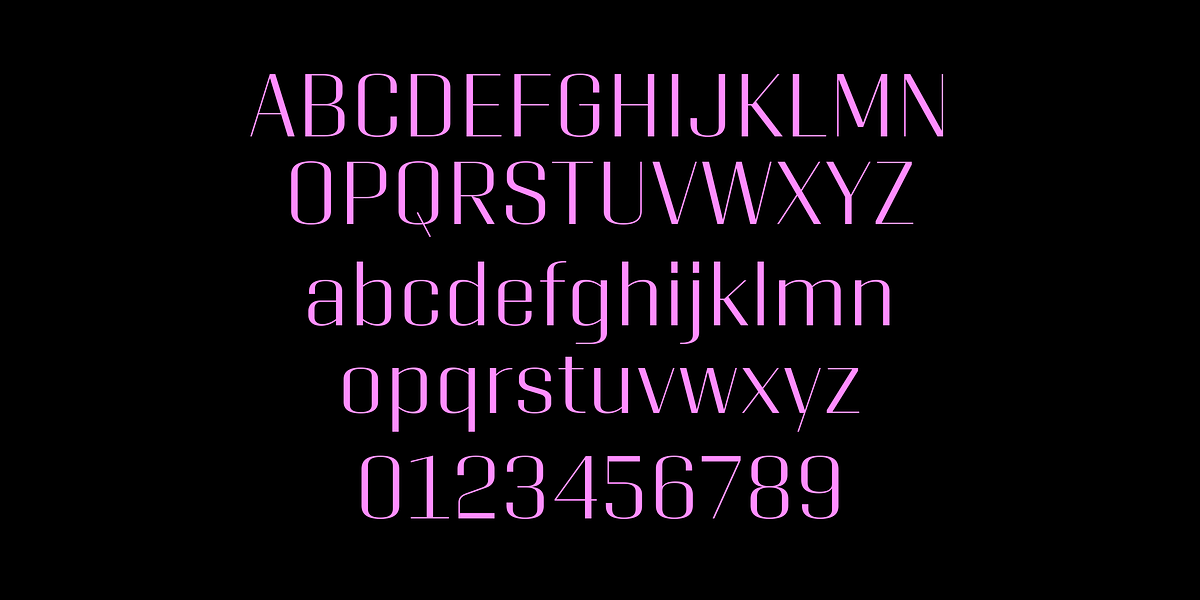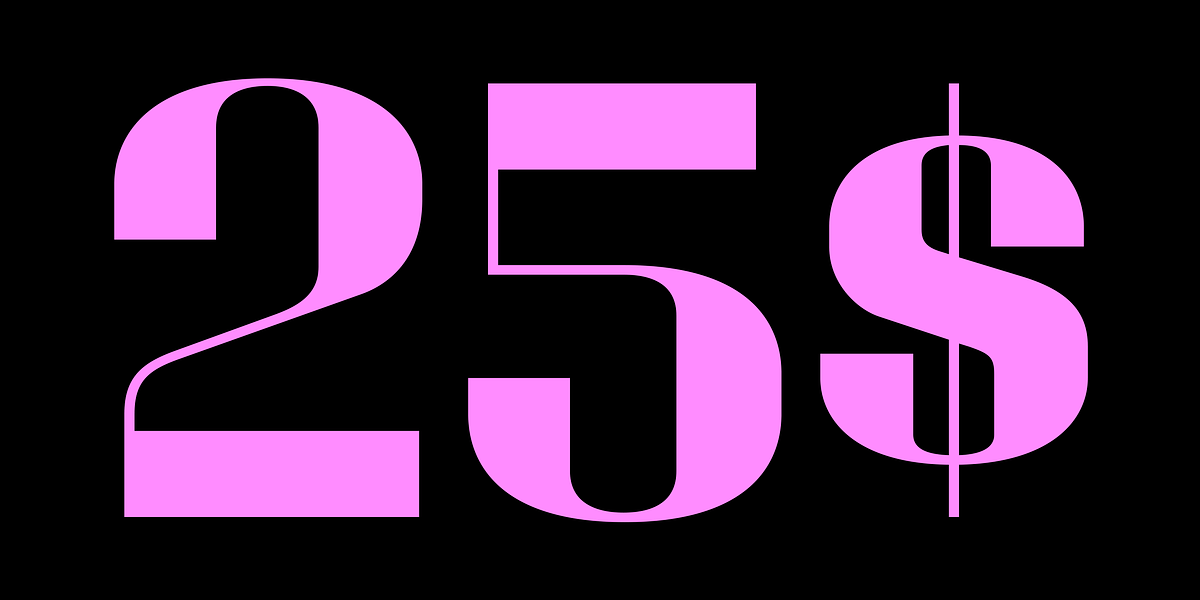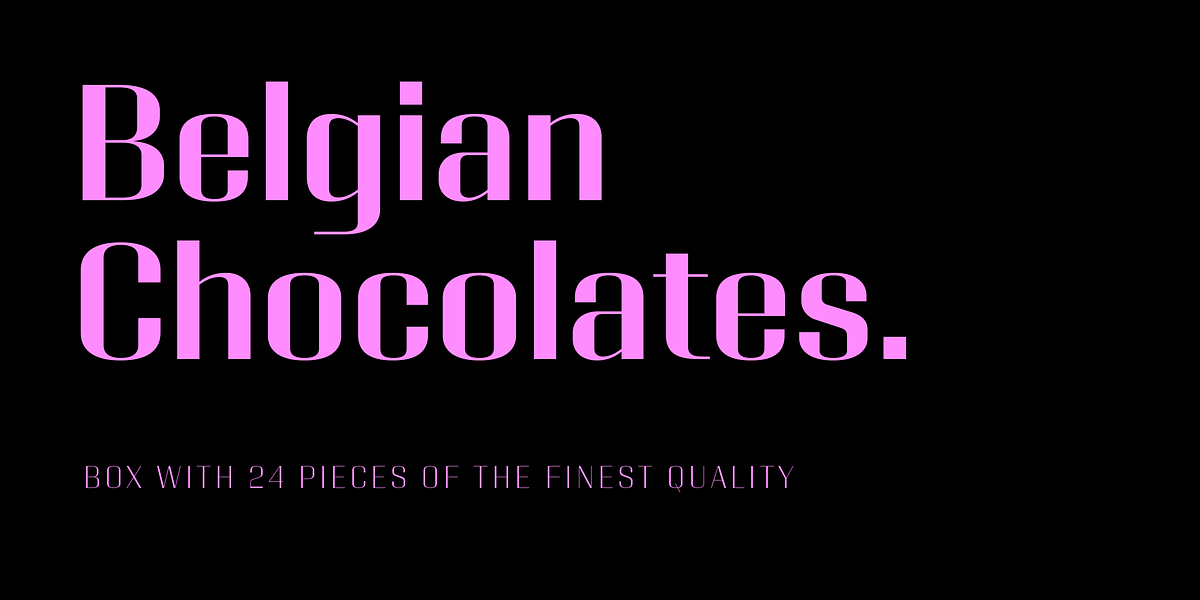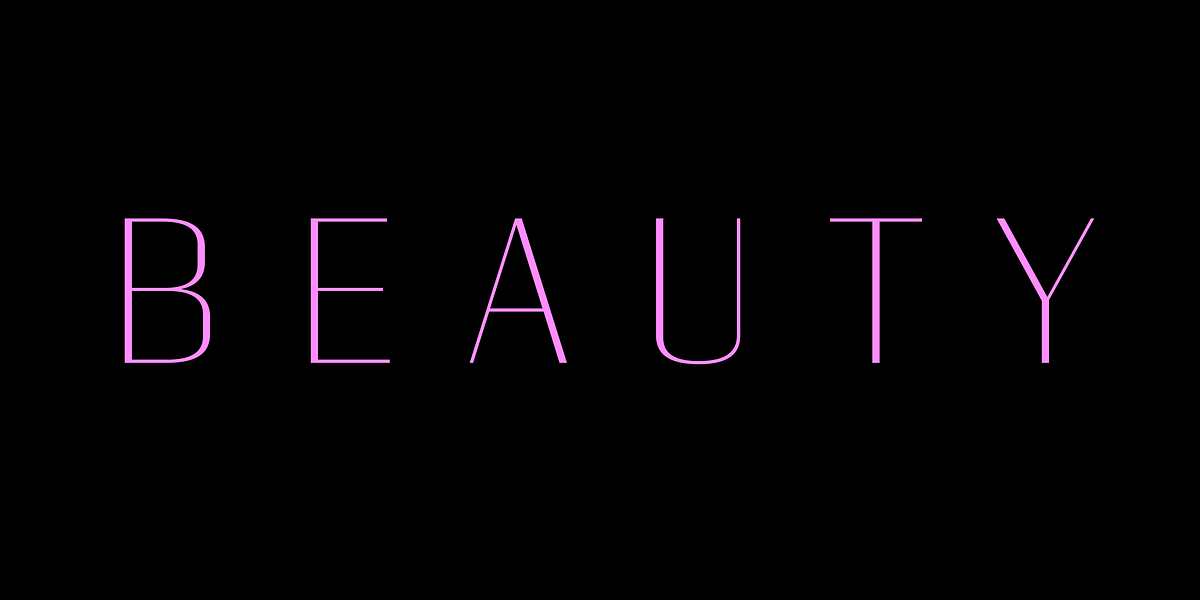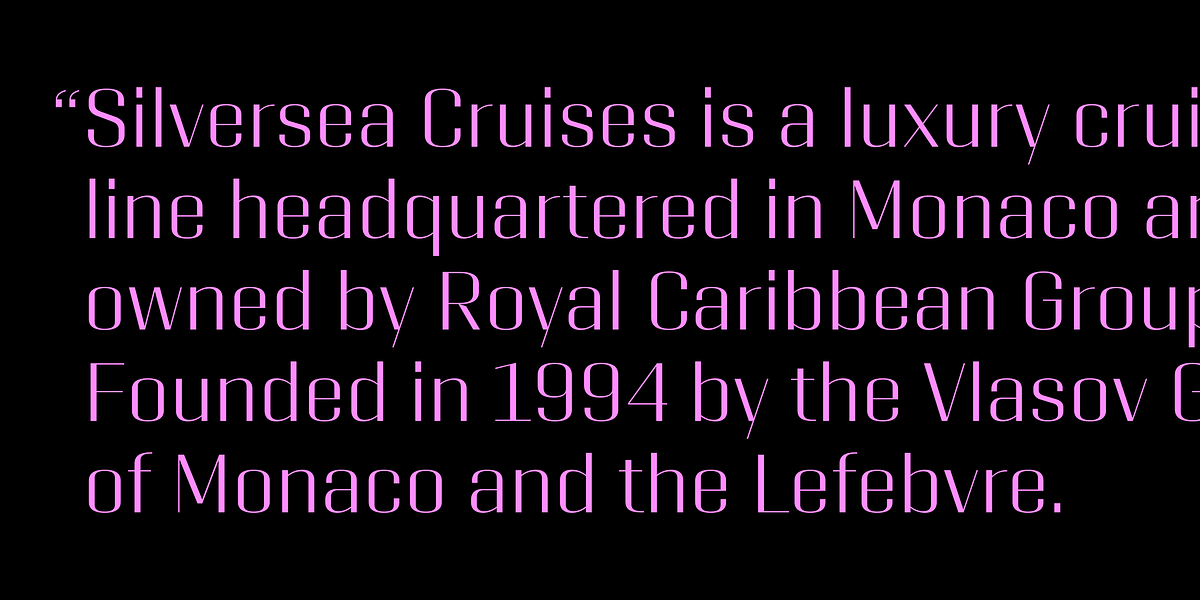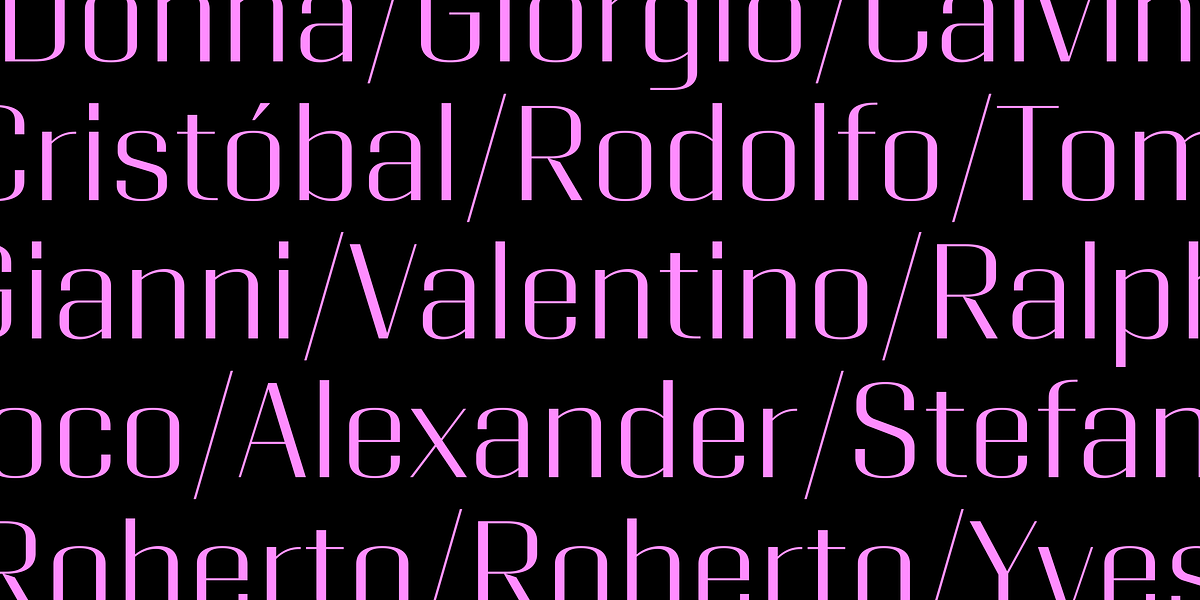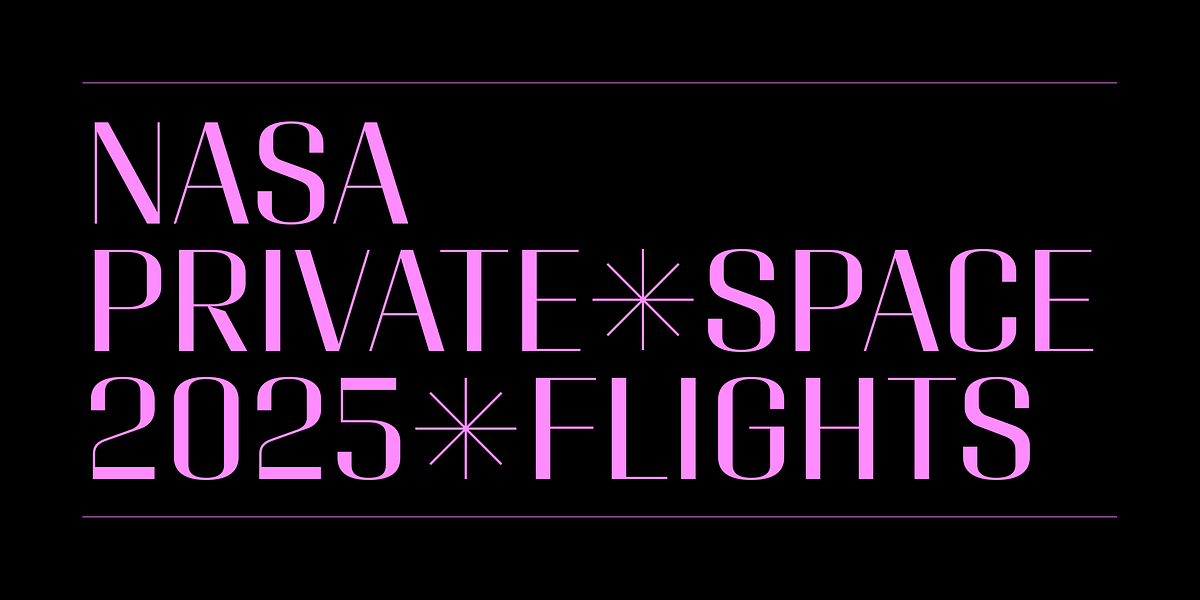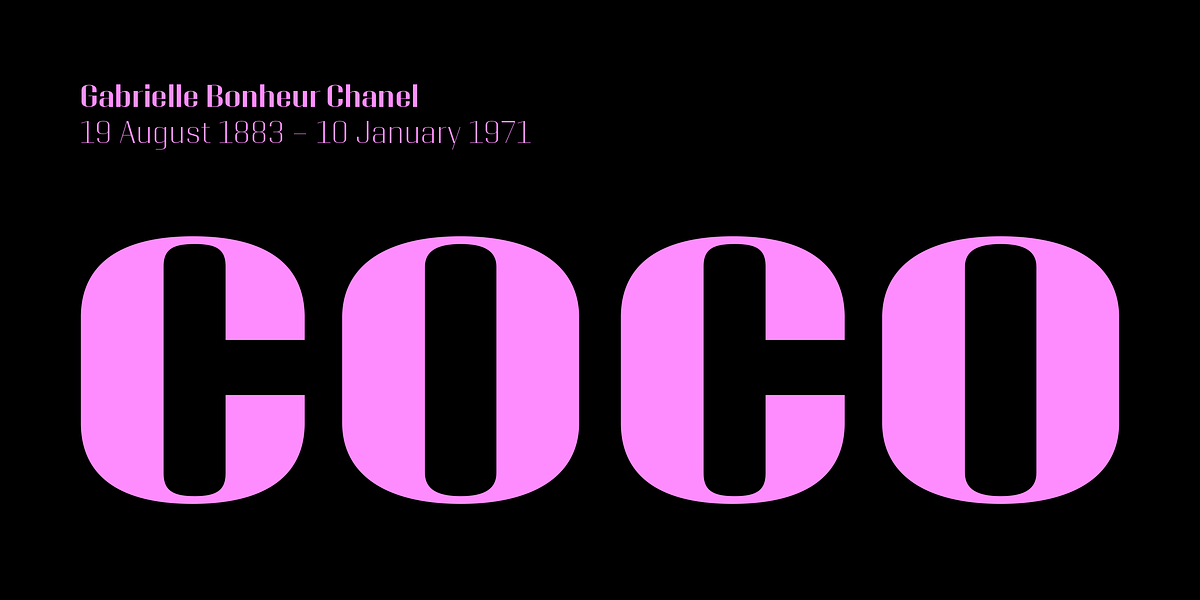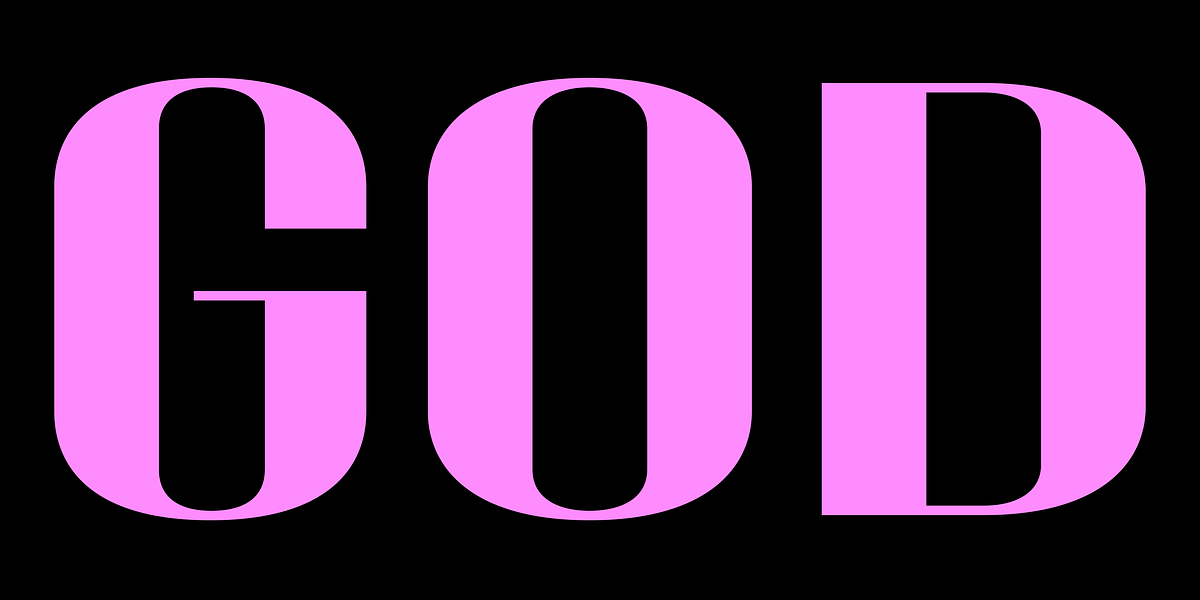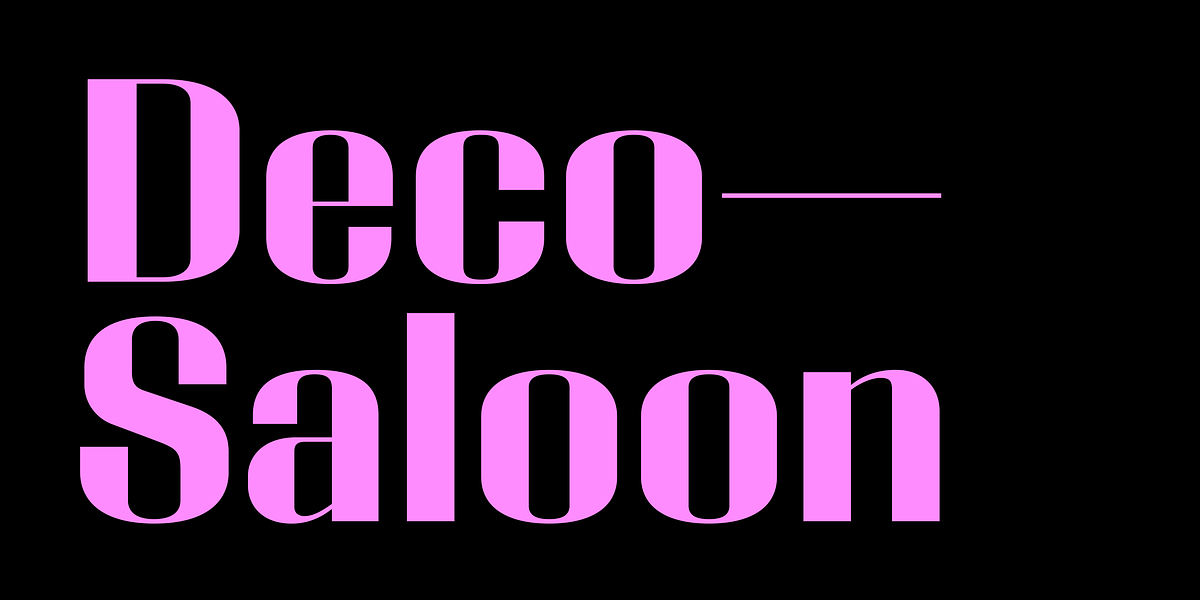
Classike
Classike is a geometric display sans serif font that draws inspiration from the Art Deco period. It features a high contrast design with square forms, creating a refined and elegant aesthetic. The font is intended for use in headlines, branding, and other display applications.